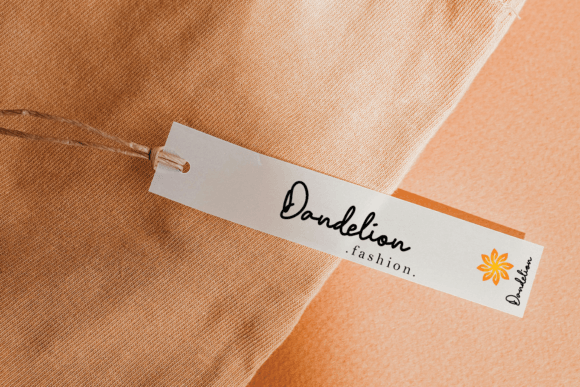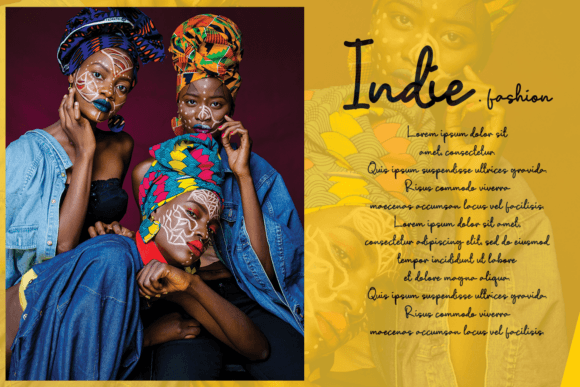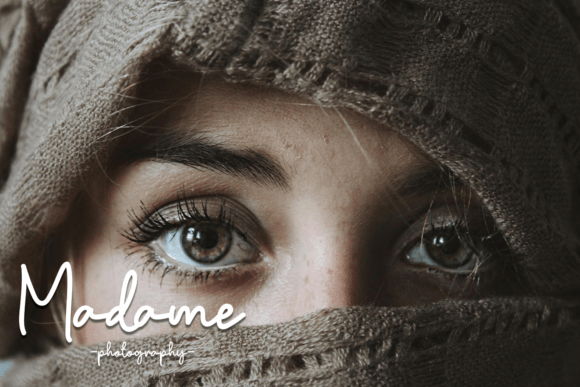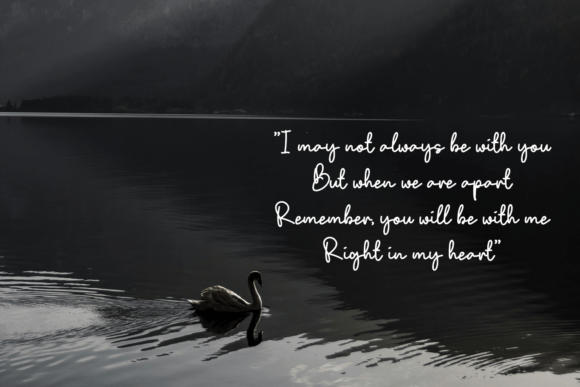
The Birth of a New Favorite: Boho Font
Have you ever sat down with a blank sheet of paper, a pencil in hand, and let your imagination run wild? The possibilities seem endless, and the world is your canvas. For designers and crafty enthusiasts, this moment of creative freedom is a sacred thing. And what’s the perfect companion to bring your ideas to life? Enter the Boho Font, a charming handwritten font that’s been carefully handcrafted to become your new go-to.
With its classy calligraphic influences and modern twist, the Boho Font is the perfect tool for bringing your designs to life. Whether you’re working on a letterhead, title, or stationery project, this versatile font is sure to impress. And the best part? Its beauty lies in its simplicity, making it a valuable addition to any designer’s toolkit.
Boho Font Key Features
- Font Family: A unique, hand-drawn font with a bohemian flair, perfect for creative and artistic designs.
- Character Count: 800+ glyphs, including international characters and punctuation marks, for a wide range of language support.
- Unique Characteristics: Features a mix of hand-drawn and digital elements, with subtle imperfections and texture, giving it a distinctive, artisanal feel.
Boho Font Review
As a designer, I’ve had the chance to play around with the Boho Font, and I must say, it’s a mixed bag. ✨ One thing that works well is its unique, eclectic style, which is perfect for creating a laid-back, bohemian vibe. The font’s irregular shapes and lines add a touch of whimsy to any design project.
- The font’s high contrast between thick and thin lines makes it stand out in digital formats.
- Its versatility allows it to be used in a wide range of applications, from logos to signage.
However, there are some limitations to consider. ⚠️ The font’s inconsistent spacing and letterforms can make it difficult to read at smaller sizes. Additionally, some characters may not be as smooth or refined as others, which can affect the overall quality of your design.
Overall, I’d say the Boho Font is a great choice for designers who want to add a touch of personality to their projects. While it’s not perfect, its unique style and versatility make it a solid option for those looking to create a bohemian-inspired aesthetic.
– Pair it with a neutral background to let the font take center stage.
– Use it for titles, headings, and captions to add a touch of elegance.
– Use it in wedding invitations, menus, and other design elements where a touch of bohemian style is desired.